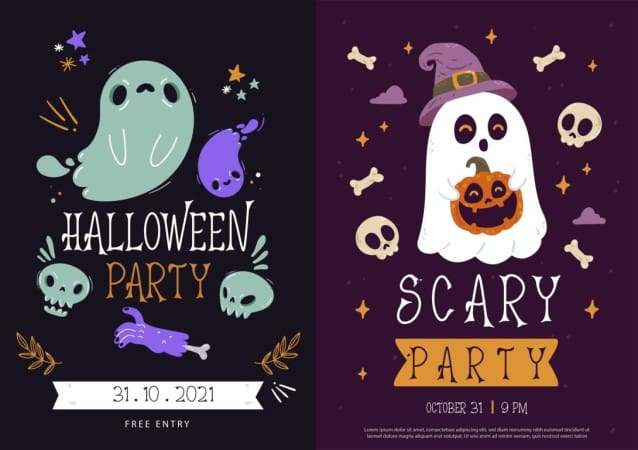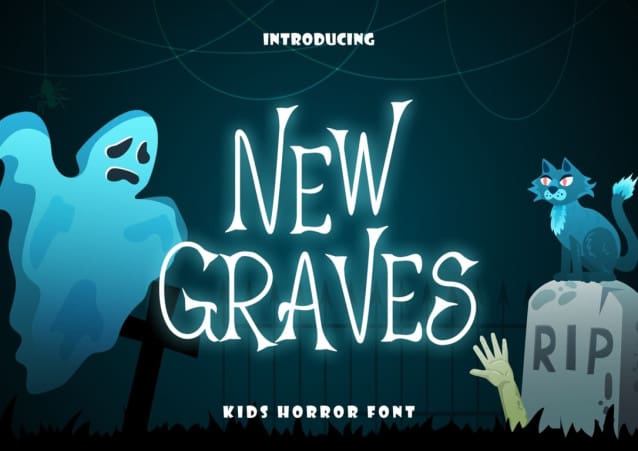
New Graves Font
New Graves Font, a handwriting font with a haunting and Halloween-inspired look, often seen on posters, book covers, and CD artworks. The irregular letter heights capture a hand-drawn and humanist essence, adding a touch of authenticity to your designs. Unleash the creative potential of NewGraves for your next craft project, whether it’s posters, flyers, banners, illustrations, covers, name cards, or any other imaginative endeavor. Let NewGraves elevate your creations with its eerie charm.